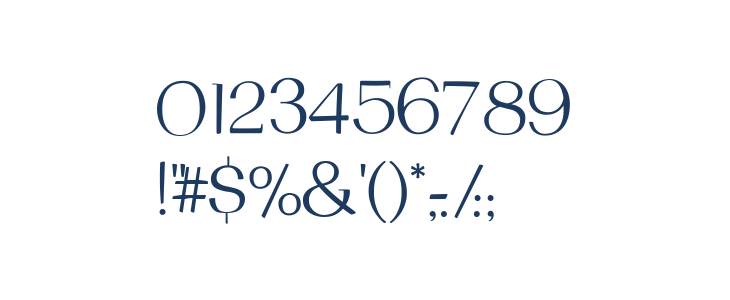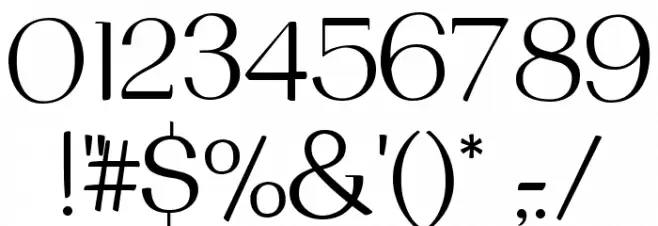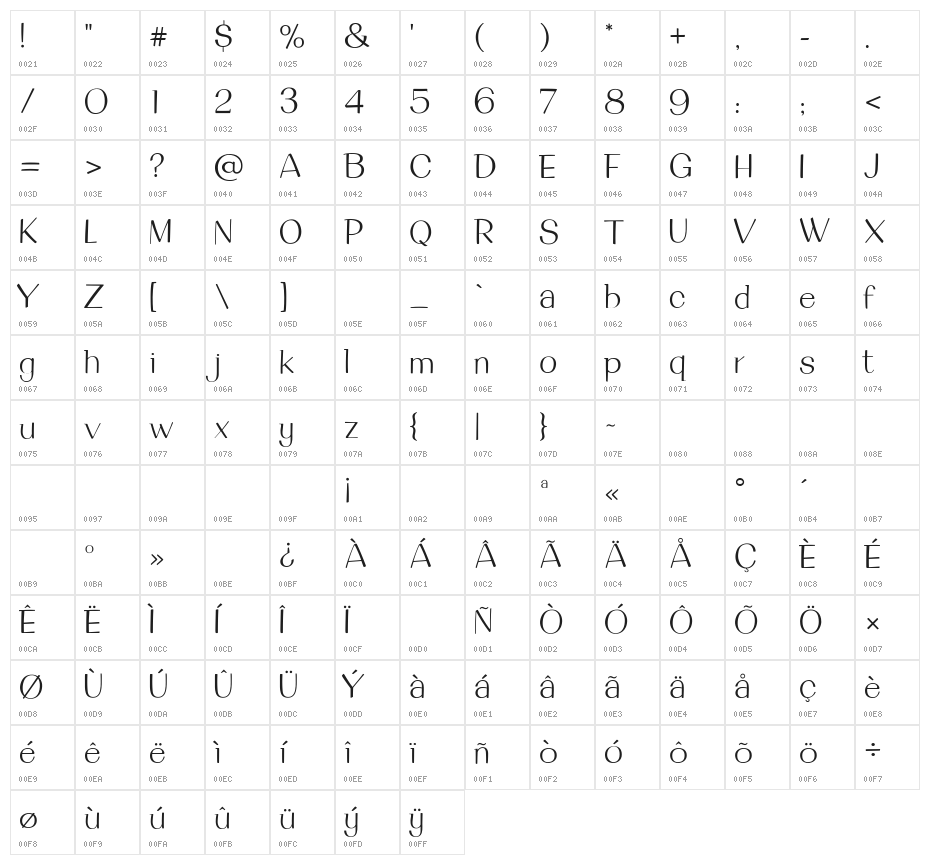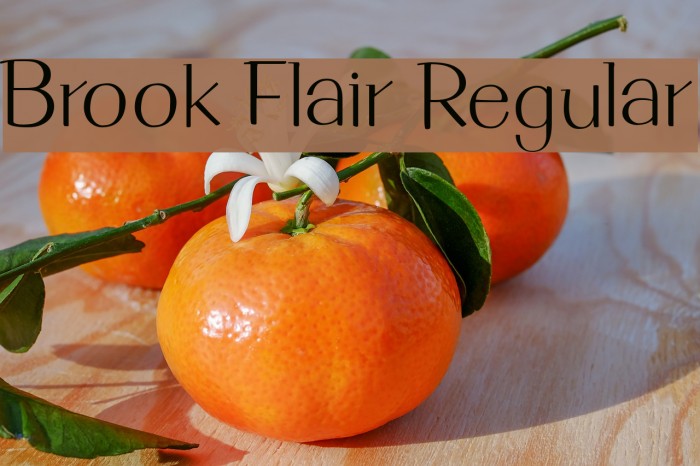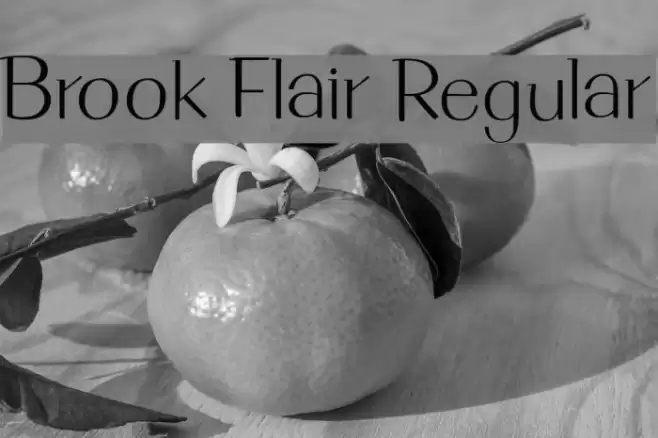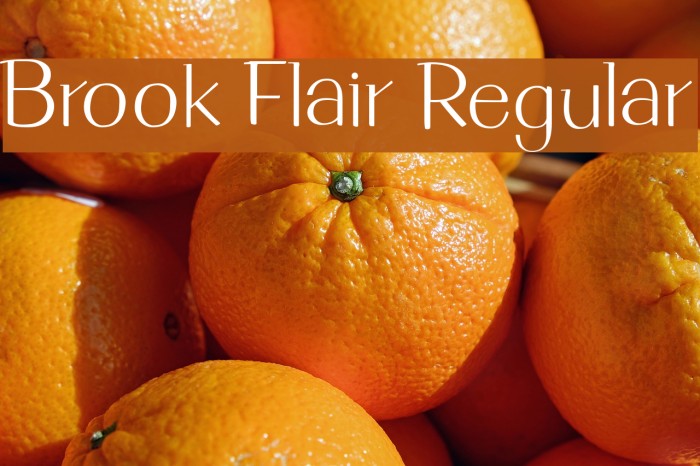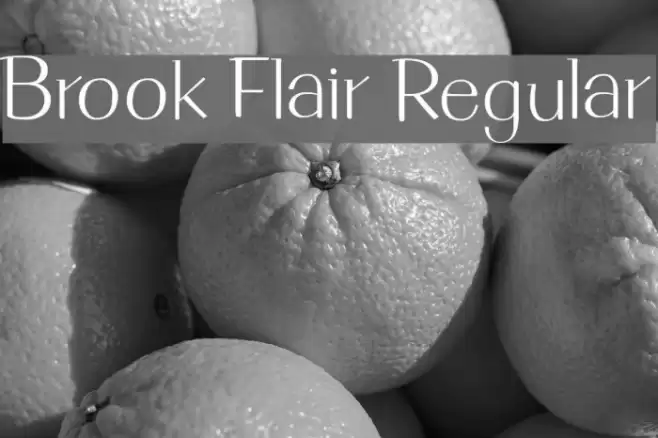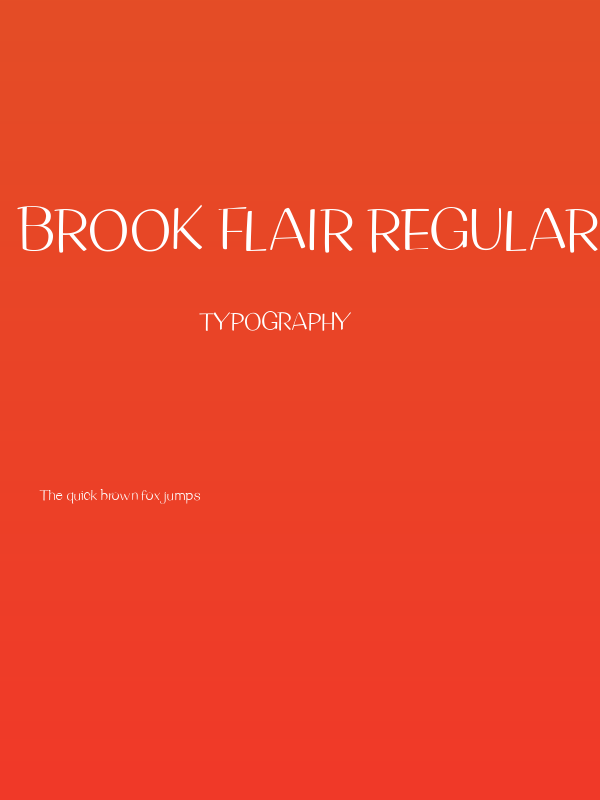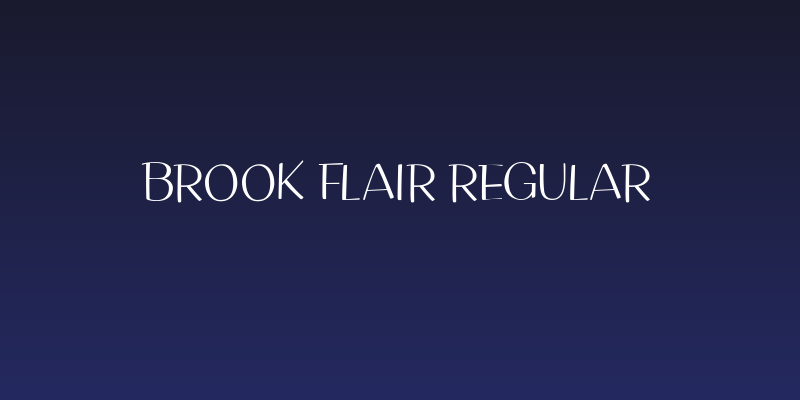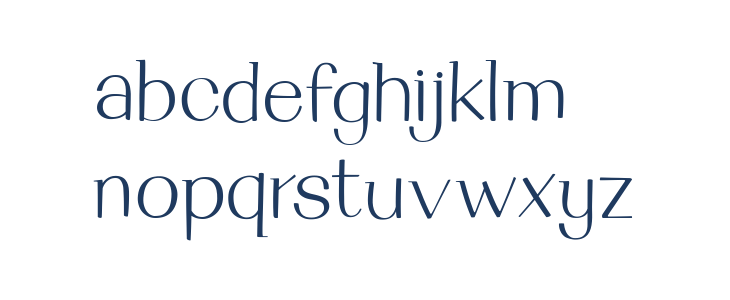
Brook Flair Regular Font
Brook Flair Regular Description
This font features a modern and elegant design with a clean and sophisticated appearance. The uppercase letters are tall and slightly narrow, giving a refined look, while the lowercase letters maintain a consistent style with smooth curves and balanced proportions. The numerals are clear and easy to read, complementing the overall aesthetic. Special characters are well-integrated, maintaining the font's cohesive style. The font's design is versatile, suitable for both formal and contemporary applications, making it an excellent choice for a variety of design projects.
Use CaseHeadlines, Body text, Logos
Proposed ProjectsIdeal for branding, editorial design, advertising, and digital media.